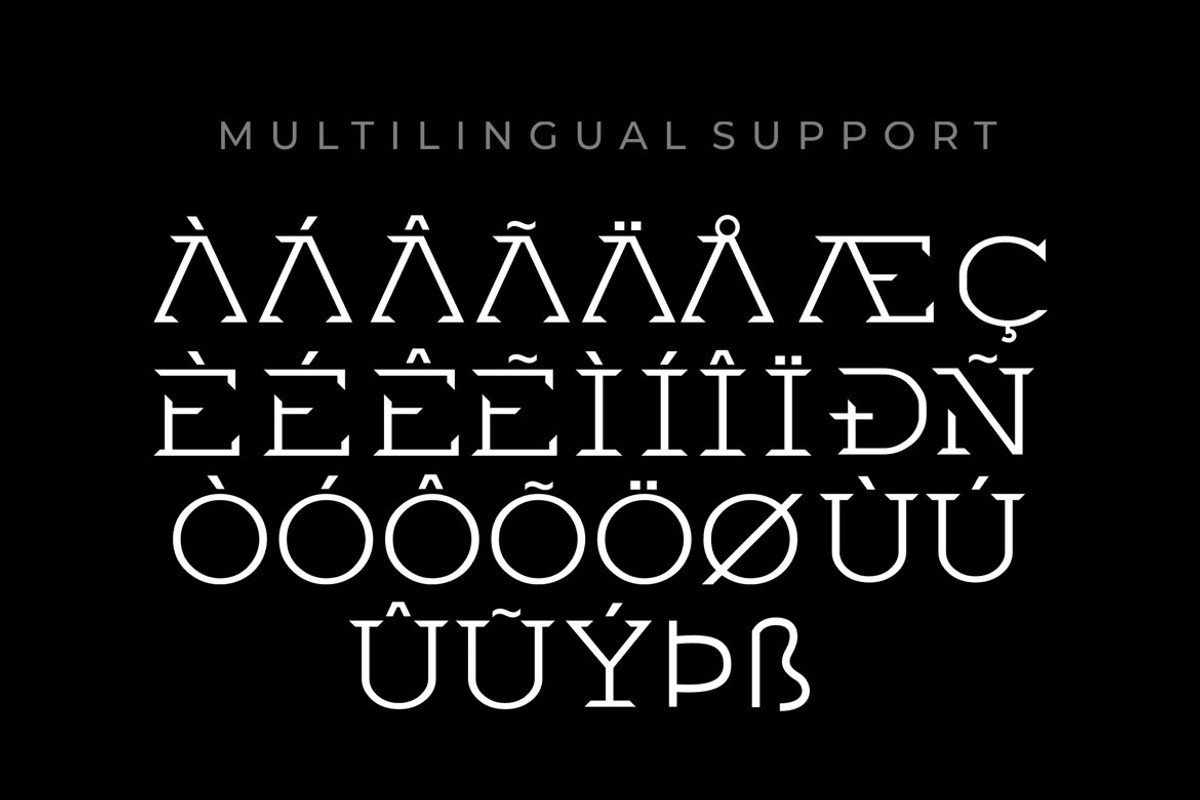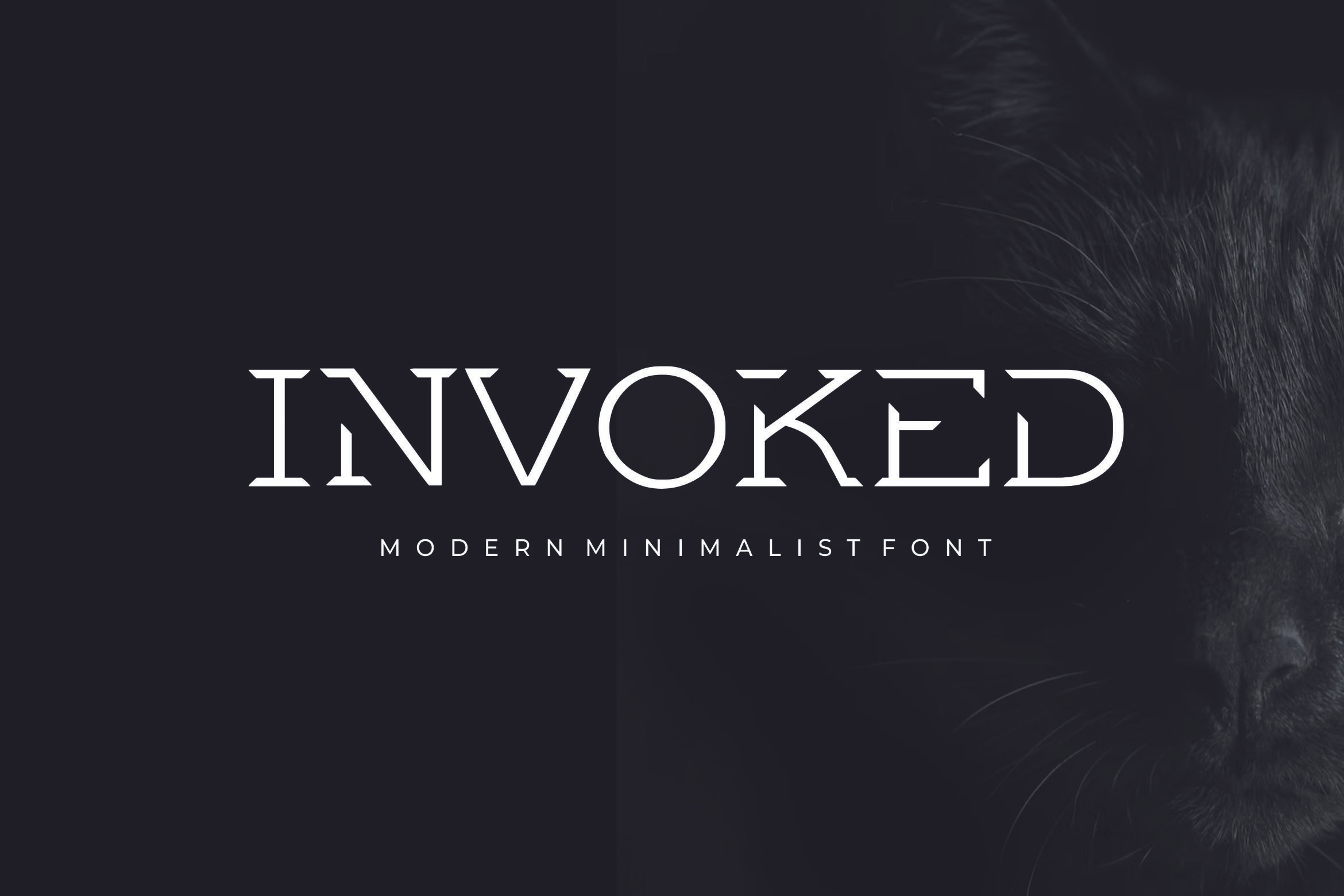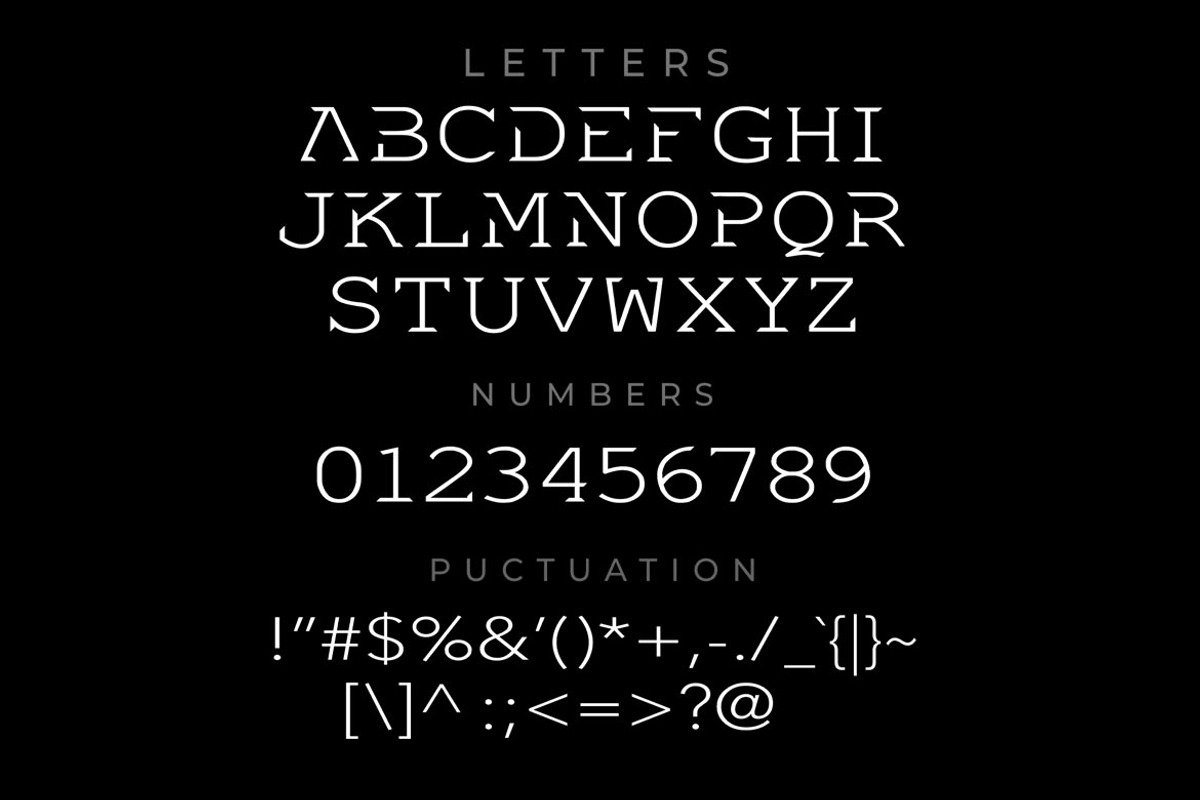
Invoked - Modern Minimalist Font
Invoked serif typeface that combines classic and modern style fonts moderated with a touch of minimalist design in the same time, produces beautiful and elegant fonts. Very suitable various alternative styles that allow for logos, posters, covers, main packaging, t-shirts, business cards, wedding cards and more.